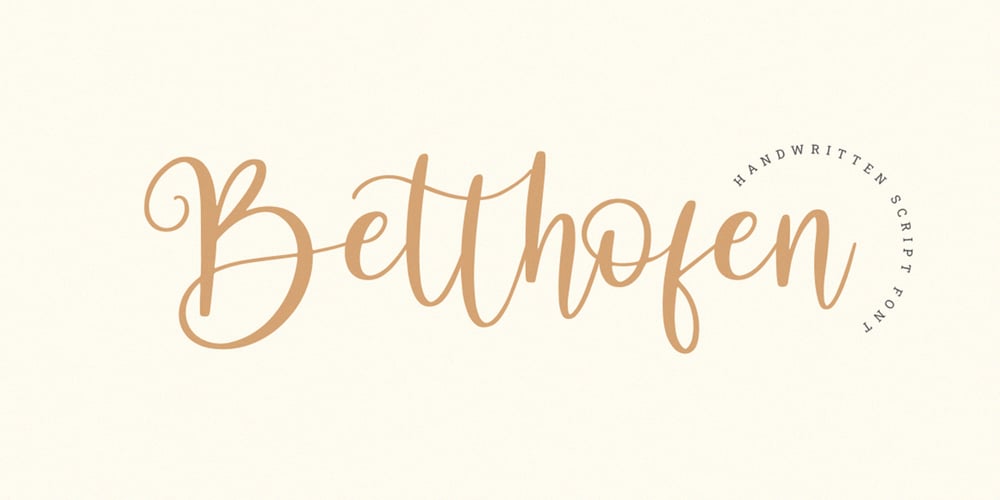
Betthofen Script Font Family was designed by Ferry Ardana Putra and published by Ferry Ardana Putra. Betthofen Script contains 1 styles and family package options. Betthofen |Handwriting Bouncy Script font manufactured by Ferry Ardana Putra, this typeface support OpenType features and includes numeral, punctuation, ligatures and it also supports multi-languages. Combine this bouncy font with its ligature and ton of ornaments that you can freely choose for your precious project! This font is perfect for branding projects, wedding designs, advertisements, product packaging, product designs, label, photography, invitation, quotes and any project spiced up!Betthofen features:A full set of upper & lowercase charactersNumbers & punctuationMultilingual language supportPUA Encoded Characters+350 GlyphLigaturesSwashesOrnamentsOpenType Features———⚠️To enable the OpenType Stylistic alternates, you need a program that supports OpenType features such as Adobe Illustrator CS, Adobe InDesign & CorelDraw X6-X7, Microsoft Word 2010 or later versions. There are additional ways to access alternates/swashes, using Character Map (Windows), Nexus Font (Windows), Font Book (Mac) or a software program such as Pop Char (for Windows and Mac).⚠️For more information about accessing alternative, you can see this link: http://adobe.ly/1m1fn4Y———🔑Important tutorial from the author:Tutorial for Mollusca font trio: https://lnkd.in/d984CQD6How to use Midway | Retro Script Font on illustrator: https://lnkd.in/eusbZd7sHow to use Midway | Retro Script Font on Photoshop: https://lnkd.in/evsYrwgs———❤️Get in touch with the author:Instagram: https://www.instagram.com/ardana619Behance: https://www.behance.net/ardana619———📢Shout out to:https://unsplash.com (for awesome photos)https://graphicburger.com (for outstanding mockups)———🔥Thankyou for purchasing our product, hope you like and have fun with our product. If you have any queries, questions or issues, please don’t hesitate to contact us directly. If you satisfied with our product, please give 5 stars rating.———Happy Designing…😊